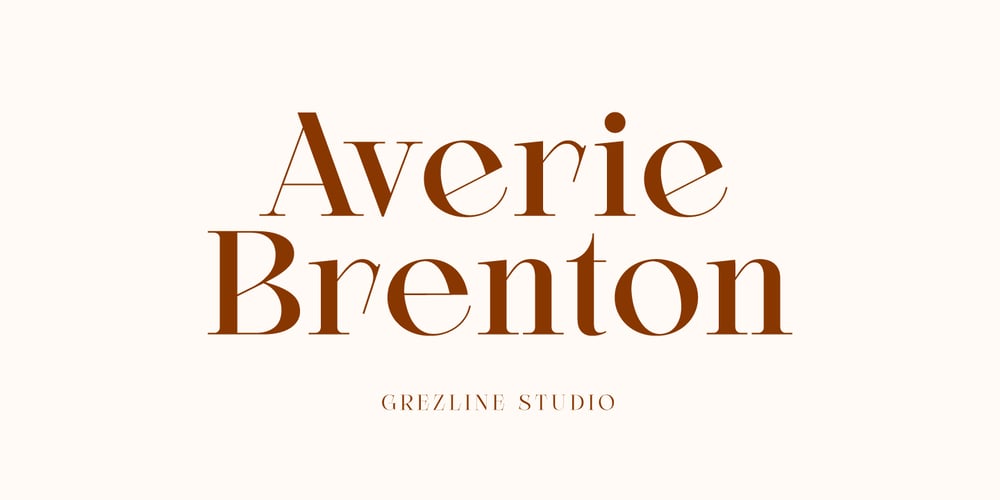
Averie Brenton Font Family was designed by Akhmad Reza Fauzi and published by Grezline Studio. Averie Brenton contains 5 styles and family package options. Averie Brenton is an elegant serif font family. Perfectly to be applied to various forms such as invitations, labels, logos, magazines, books, greeting / wedding cards, packaging, fashion, make up, stationery, novels, labels or any type of advertising purpose.Feature : Alternates and Ligatures Multilingual Language Works on PC & Mac Simple installations Accessible in the Adobe Illustrator, Adobe Photoshop, Adobe InDesign, even works on Microsoft Word. We highly recommend using a program that supports OpenType features and Glyphs panels like many of Adobe apps and Corel Draw, so you can see and access all Glyph variations.Thank You!Grezline Studio – Akhmad Reza FauziContact : grezline.studio@gmail.com